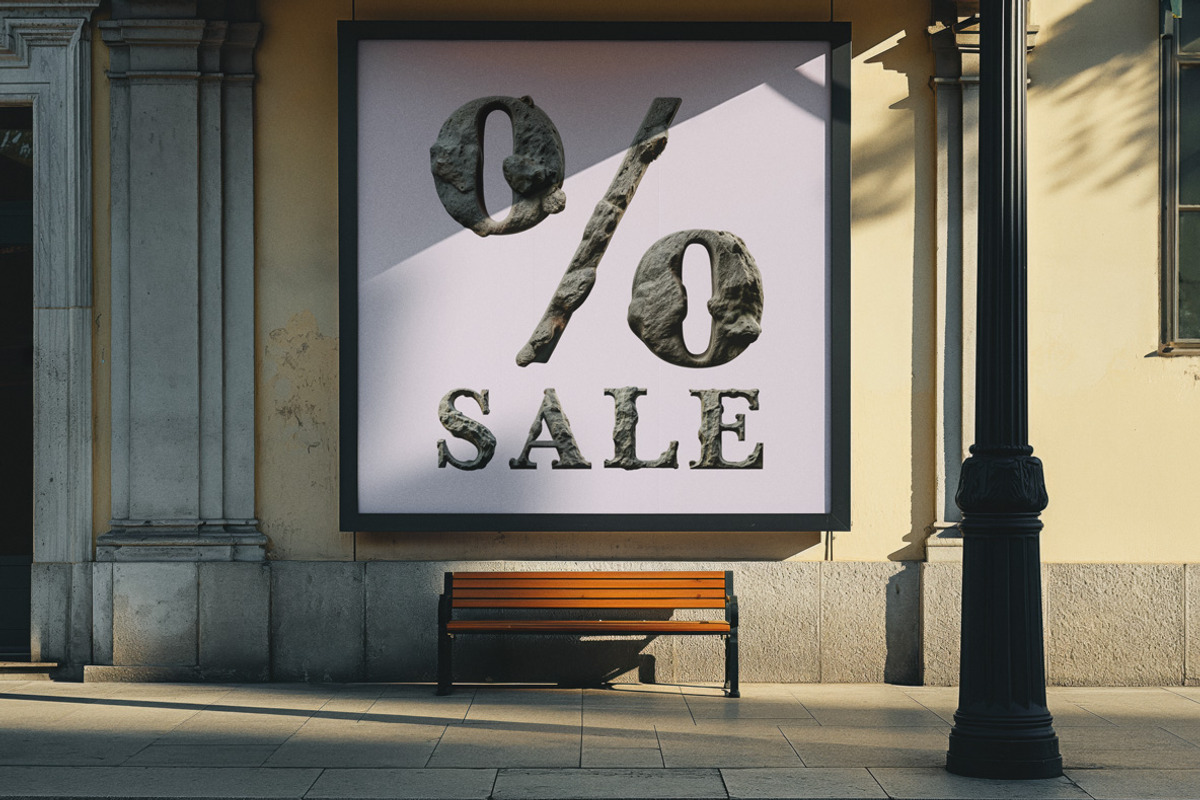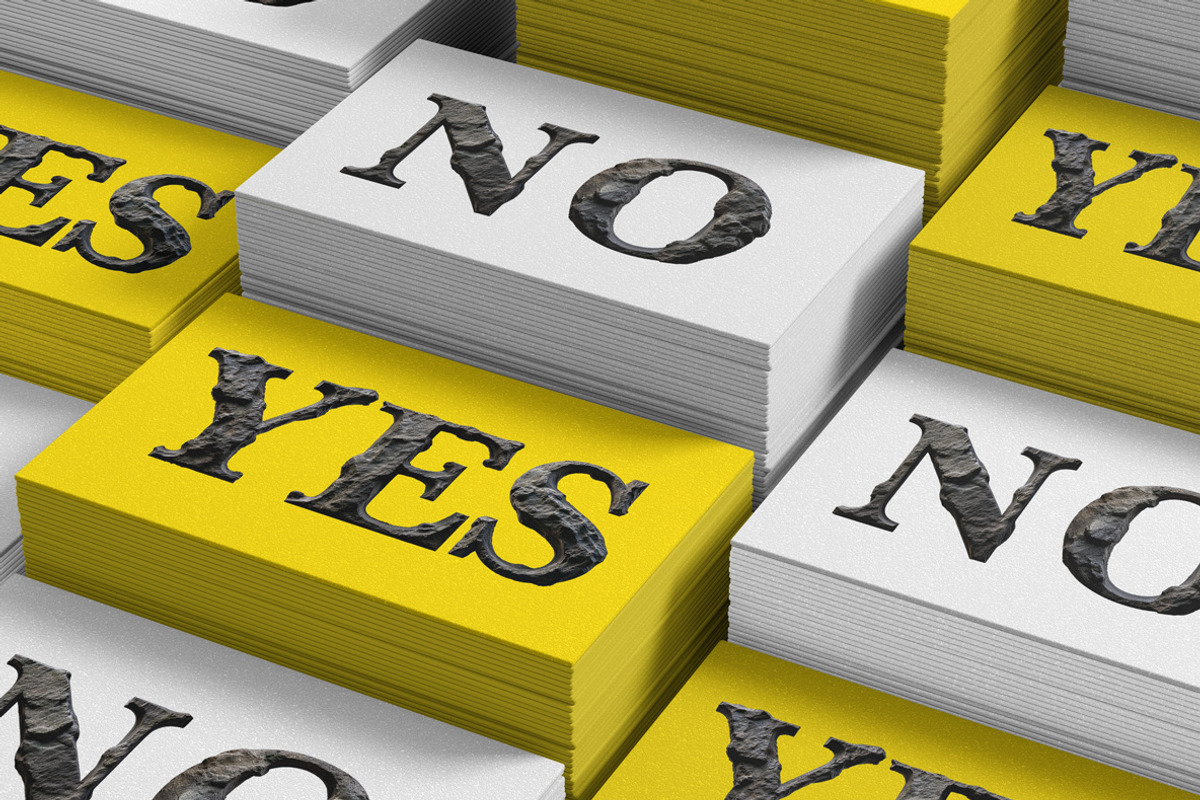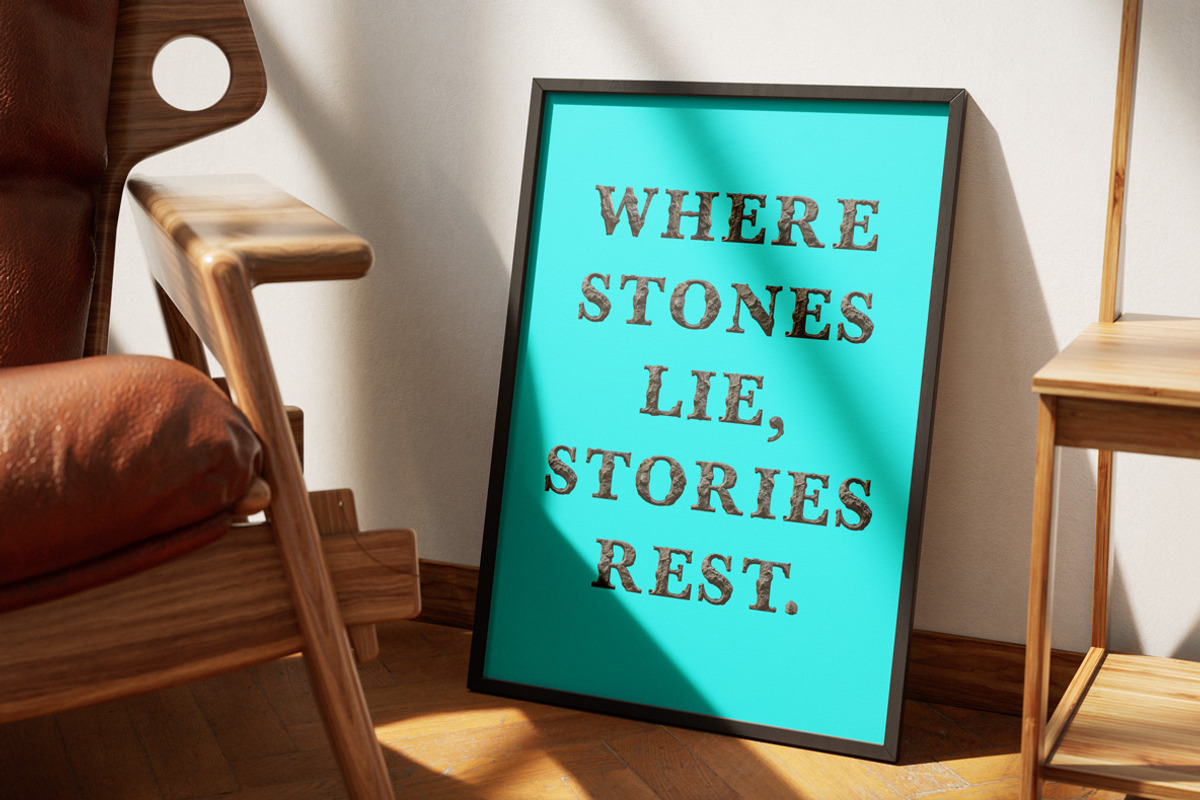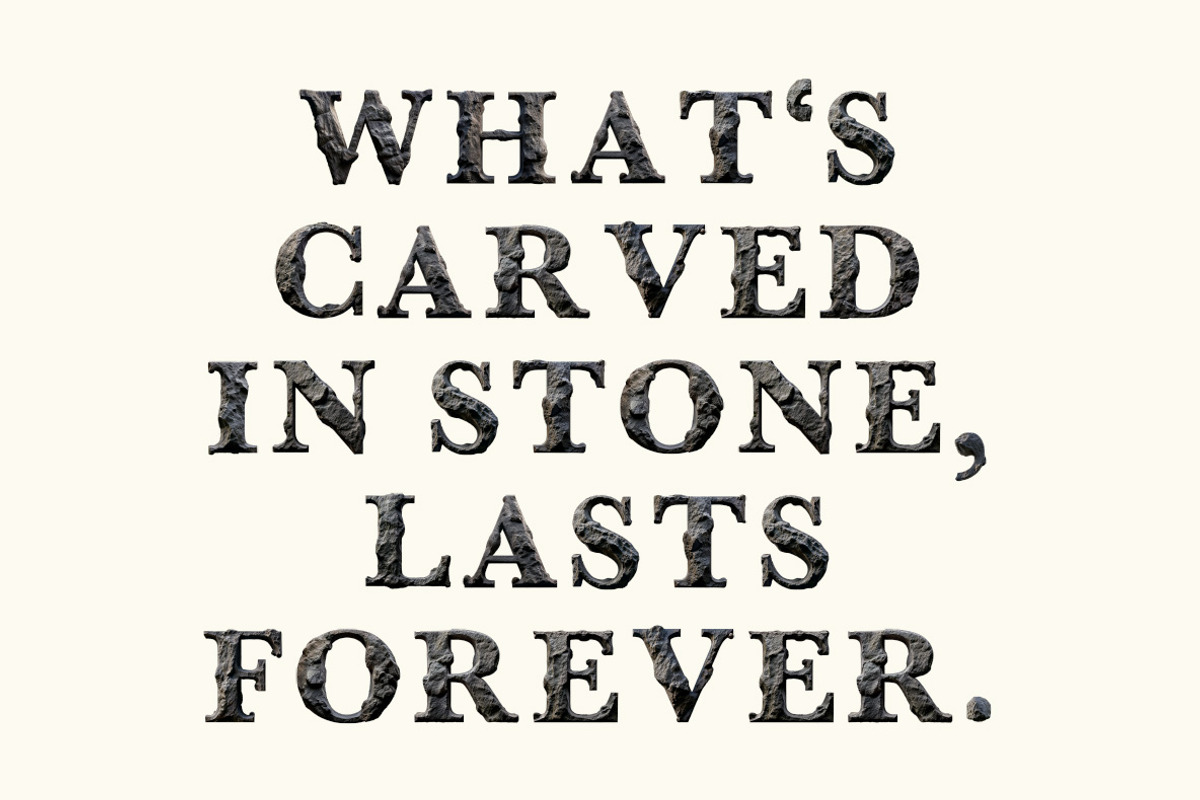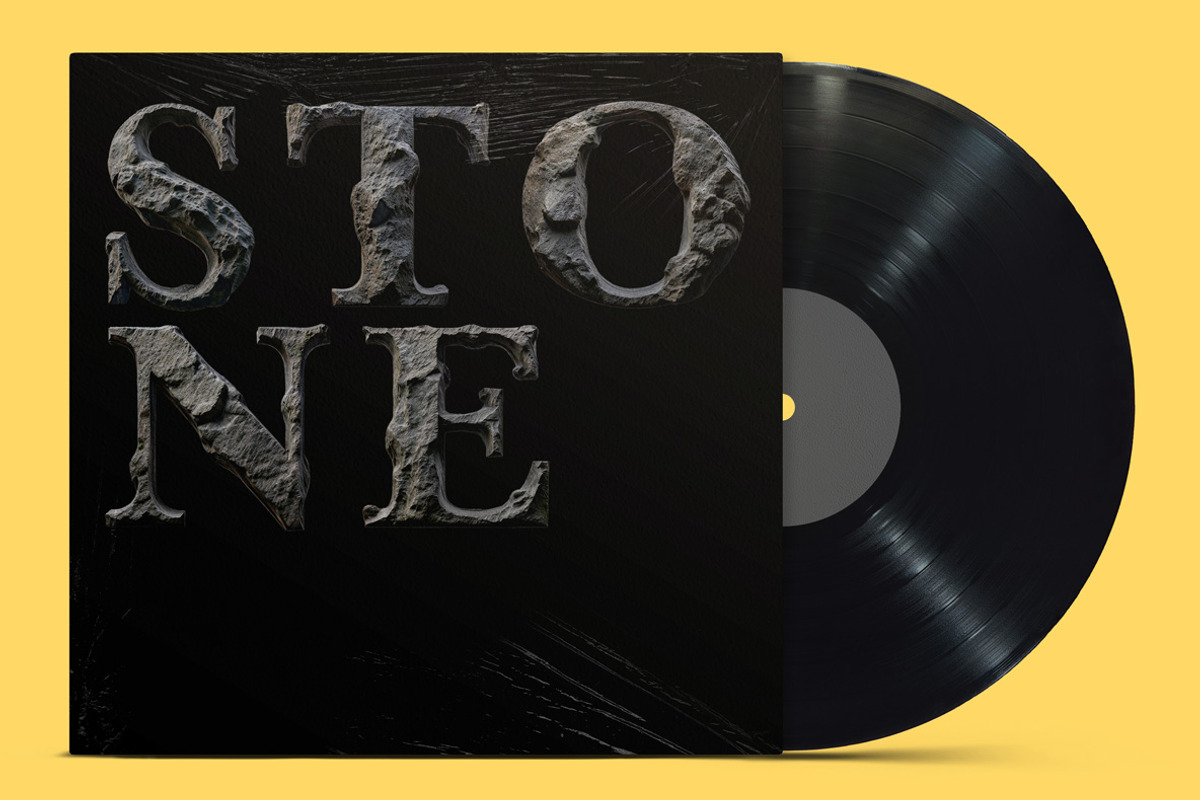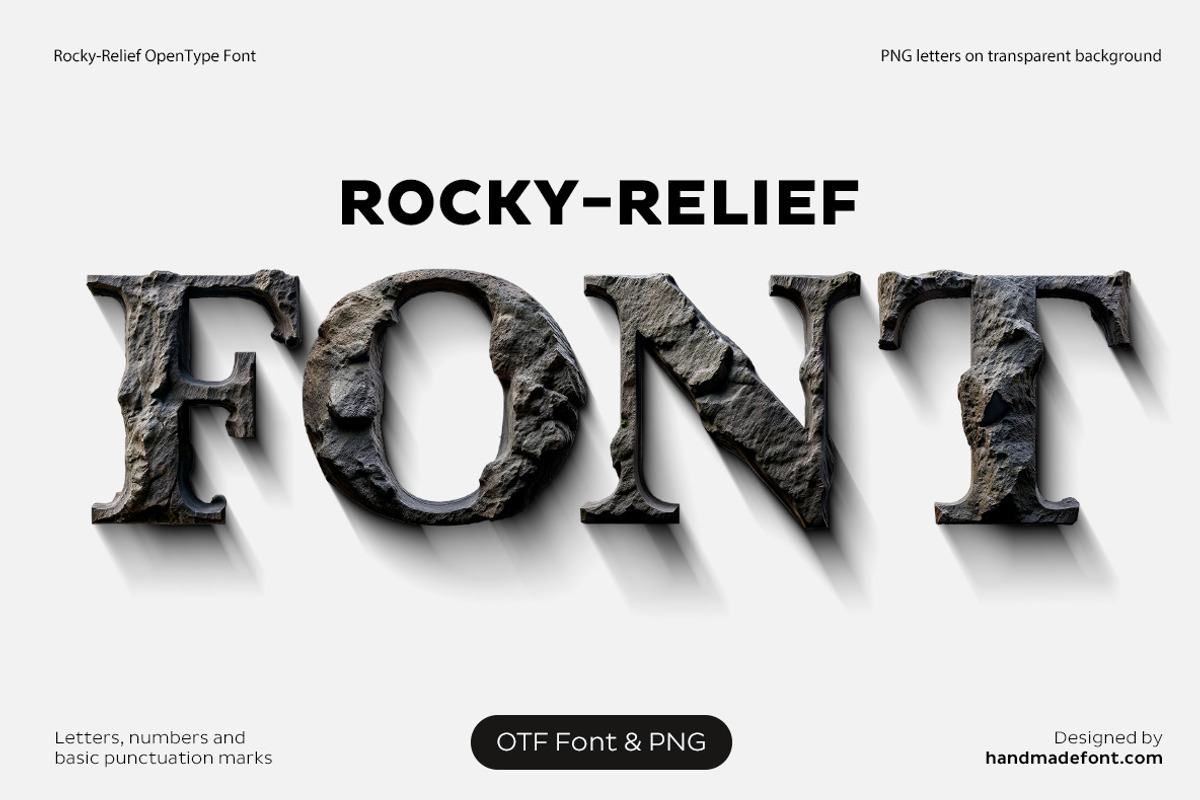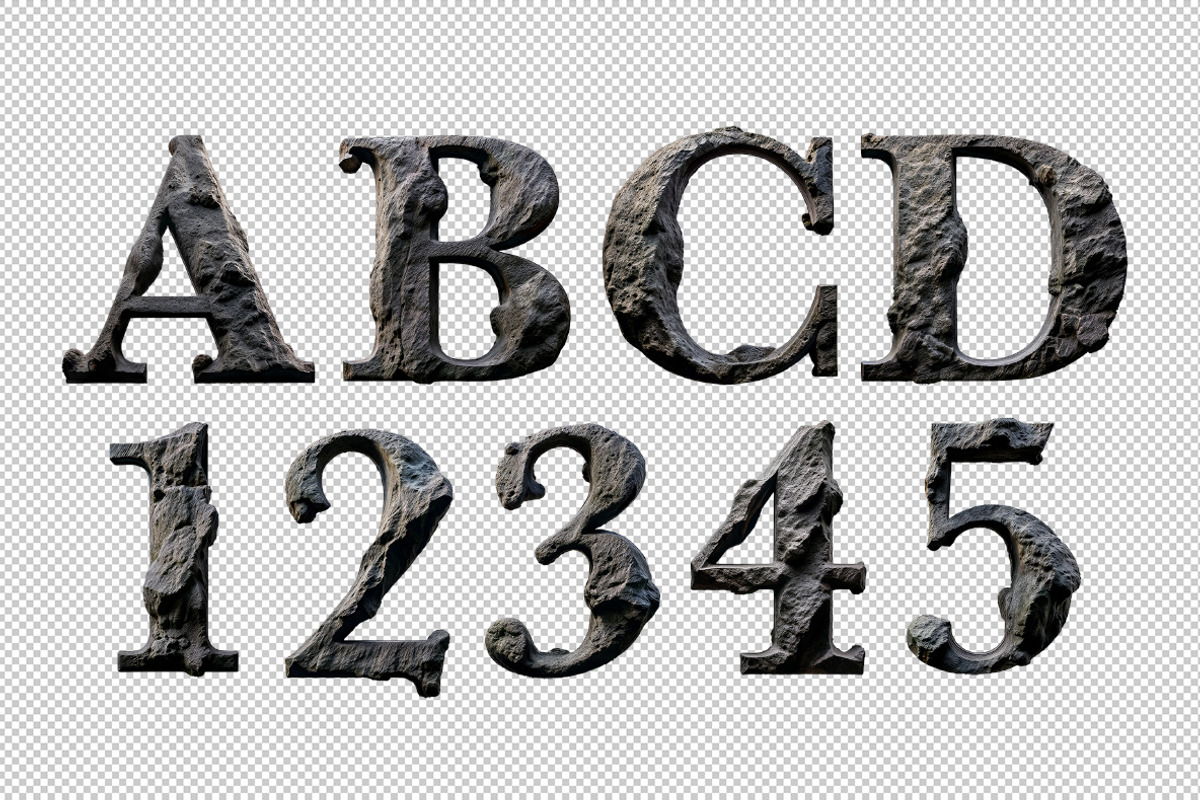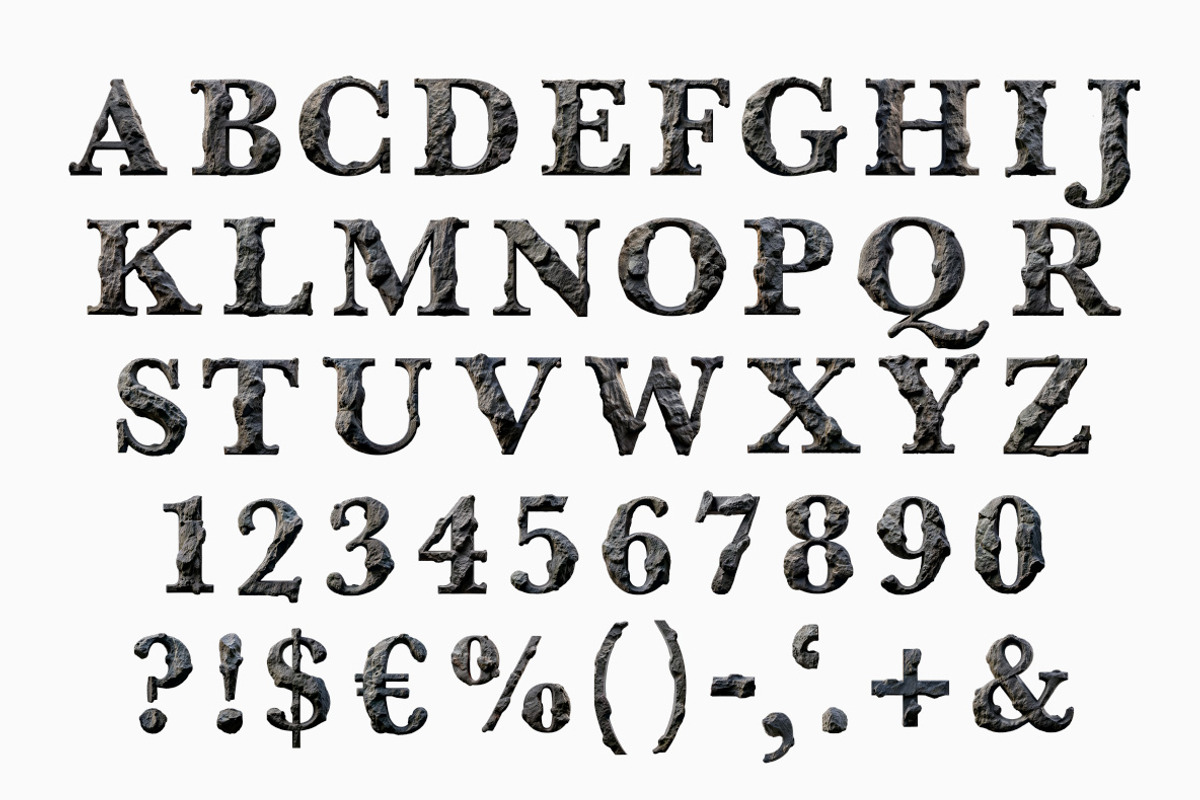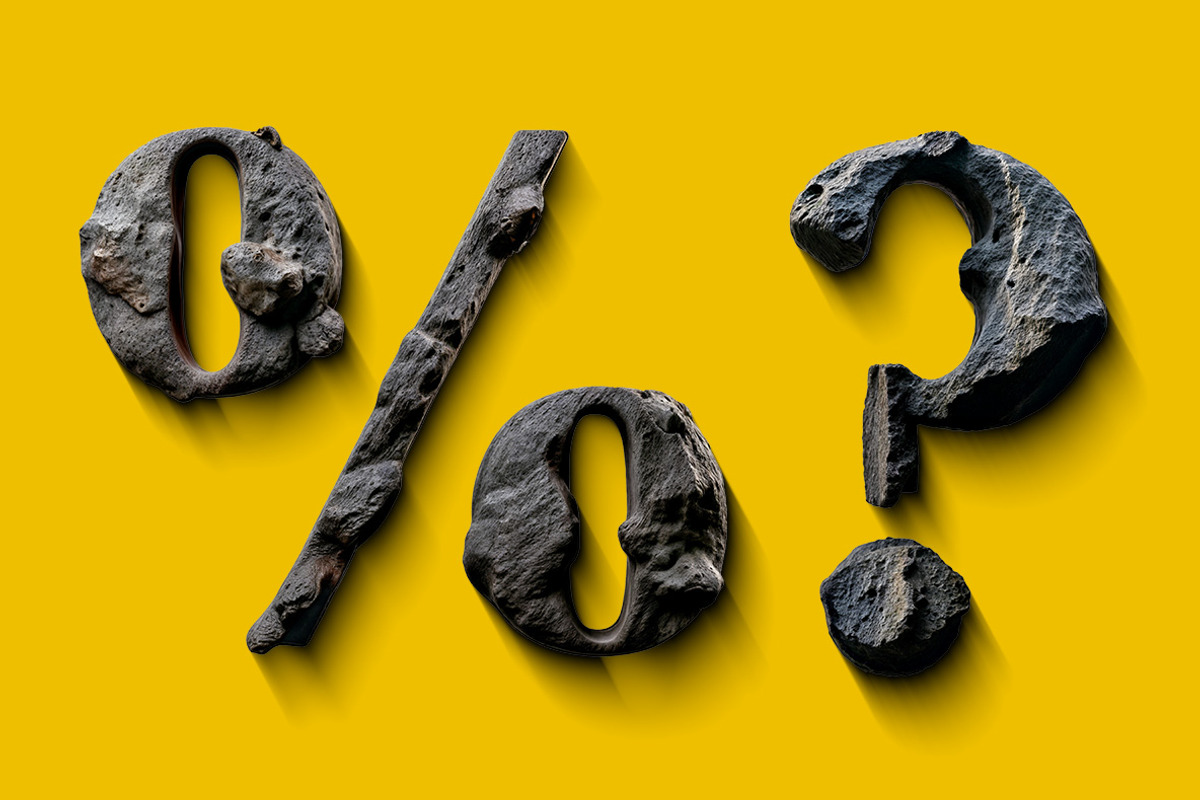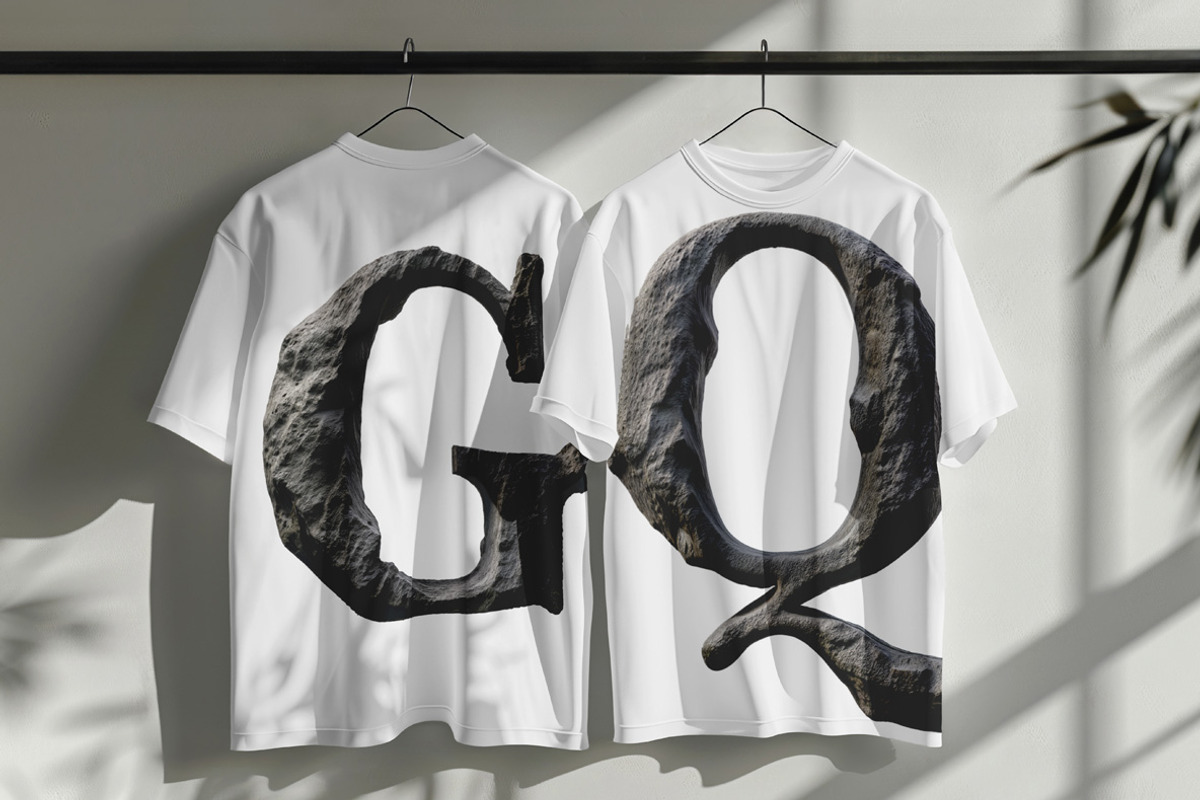
Rocky Relief Font
Strong and commanding, the Rocky Relief Font embodies the raw beauty of nature. Each letter resembles a rugged, chiseled masterpiece crafted from black stone, evoking the timeless allure of rocky landscapes. This stone-inspired font features an uneven surface adorned with natural bumps, ridges, and crevices, mimicking weathered rock shaped by time and erosion. Its textured, rough, and organic design gives the letters a tactile, earthy appeal, as though carved from a mountainside. The dark grayish tones amplify its solid, grounded presence, while subtle highlights bring its three-dimensional details to life. Perfect for designs that demand strength and authenticity, Rocky Relief Font is a striking tribute to the artistry of stone typography.
A high definition OpenType Font. Contains uppercase characters, numerals and basic punctuation. (Draw height roughly 800 pixels). All letters and glyphs that comprises this font you can see on the preview.